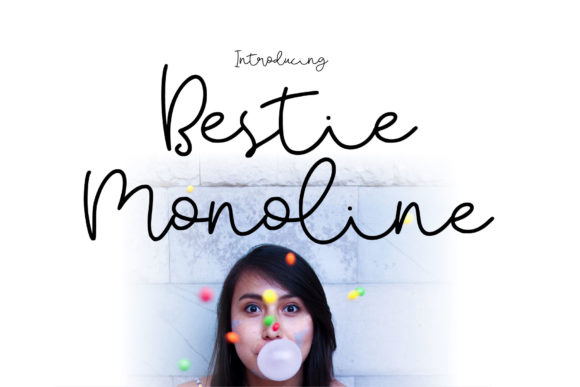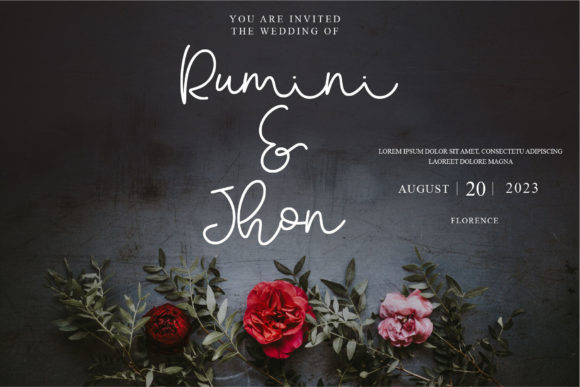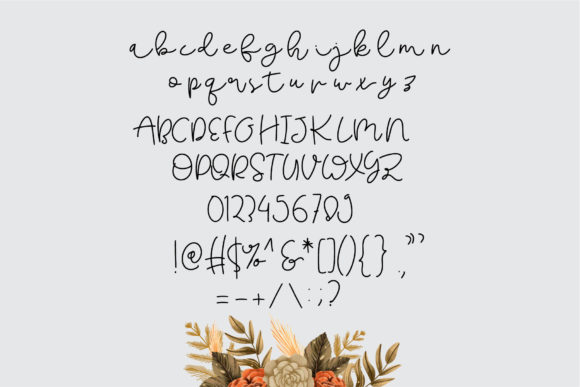
Bestie Monoline Script Font
About Bestie Monoline Script Font
Bestie Monoline Script is a versatile and charming casual script font that adds a touch of creativity and style to a wide range of design projects. With its clean lines and monoline appearance, this font exudes a casual yet sophisticated vibe that makes it suitable for various applications.
One of the standout features of Bestie Monoline Script is its adaptability to different design elements. Whether you’re working on logo designs, social media posts, or even movie and book titles, this font seamlessly integrates with your creative vision, enhancing the overall aesthetic of your project.
In logo designs, Bestie Monoline Script shines as a font that captures attention with its friendly and approachable appearance. Its clean and consistent strokes contribute to a cohesive and professional look, making it an excellent choice for businesses and brands that want to convey a modern and engaging image.
For social media posts, Bestie Monoline Script adds a touch of personality and flair to your content. Its casual yet stylish demeanor complements a variety of themes and aesthetics, making your posts stand out in crowded feeds and capturing the attention of your audience.
When it comes to movie and book titles, Bestie Monoline Script brings a unique and artistic touch. Its monoline style offers a sense of unity and balance, creating an intriguing visual that draws viewers in and sets the tone for the content they’re about to experience.
Bestie Monoline Script’s versatility extends beyond these examples, making it a valuable asset for any creative project that requires a touch of casual elegance. Whether it’s on invitations, posters, packaging, or any other design, this font effortlessly blends with different elements to enhance the overall visual appeal.
The clean and monoline nature of the font ensures legibility and readability, making it suitable for both large and small text sizes. Its ability to maintain clarity while adding a creative flair is what makes Bestie Monoline Script a go-to choice for designers who want to make a memorable impact.
In conclusion, Bestie Monoline Script is a casual script font that offers versatility, charm, and style. Its adaptability to various design projects, from logos to social media posts to movie titles, makes it a valuable tool for expressing creativity and capturing the essence of your brand or project. With its clean lines and approachable vibe, Bestie Monoline Script is a font that will undoubtedly enhance the visual appeal of your work and leave a lasting impression on your audience.